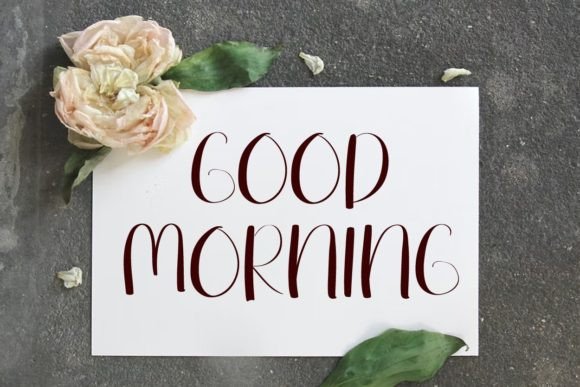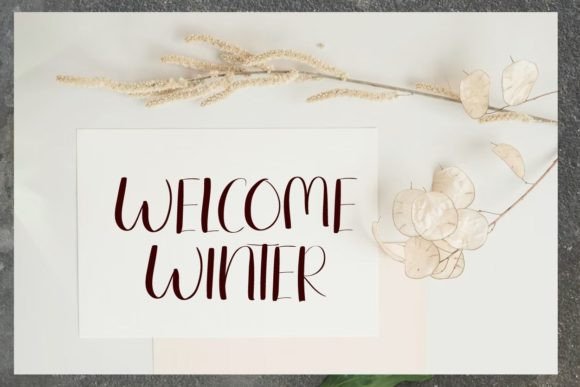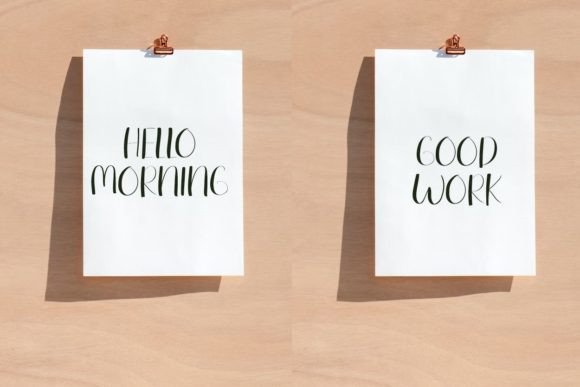
About Sunrise Font
“Sunrise Font: Fresh and Beautiful Handwritten Elegance for Creative Designs
Introducing Sunrise, a fresh and beautiful handwritten font thoughtfully crafted to bring a touch of elegance to a variety of creative projects. Perfect for designs such as YouTube banners, covers, logos, mockups, wedding invitations, cards, flyers, and crafts, Sunrise is designed to enhance the visual appeal of your creations and contribute to the progress and development of your business.
More than just a font, Sunrise is an artistic tool that seamlessly blends freshness with handwritten elegance. Its unique strokes and carefully designed characters give each letter a distinct flair, making it a perfect choice for projects that demand a balance of style and authenticity.
The versatility of Sunrise shines through in its ability to enhance the visual appeal of diverse projects. Whether you’re working on digital graphics or tangible items, Sunrise adapts effortlessly to elevate the aesthetics of your designs.
For YouTube banners and covers, Sunrise becomes a stylistic choice, adding a touch of individuality and elegance to your channel branding. The handwritten charm of the font is ideal for creating visually appealing and engaging content.
In branding projects, Sunrise serves as a signature element, contributing to memorable and impactful brand identities. Its fresh and beautiful handwritten style adds a personal and authentic touch to your business image.
Sunrise’s versatility extends to various print materials, making it suitable for wedding invitations, cards, flyers, and crafts. The font’s unique character enhances the overall aesthetics, creating a visually pleasing experience.
In conclusion, Sunrise is more than just a font; it’s a design companion that brings fresh and beautiful handwritten elegance to your creative toolkit. Let Sunrise be the brushstroke that enhances the beauty of your projects. Embrace the versatility and unique charm of Sunrise, and watch as it transforms your ideas into visually enchanting experiences, contributing to the progress and development of your business.”